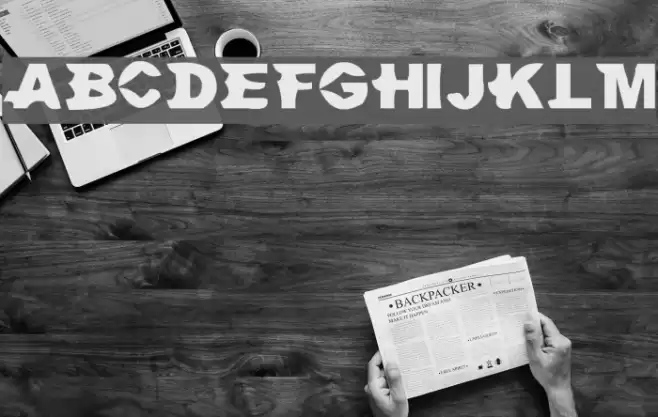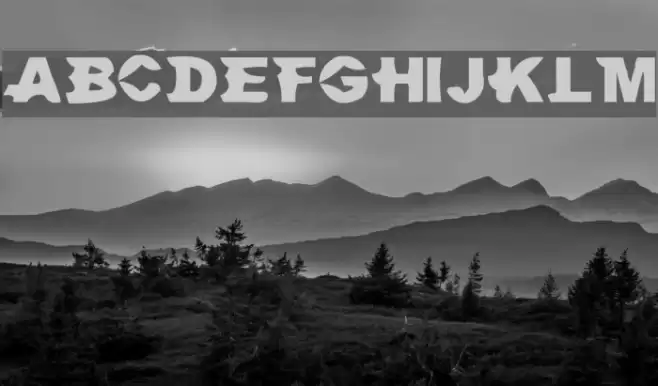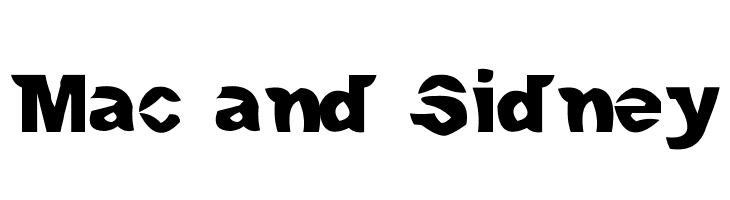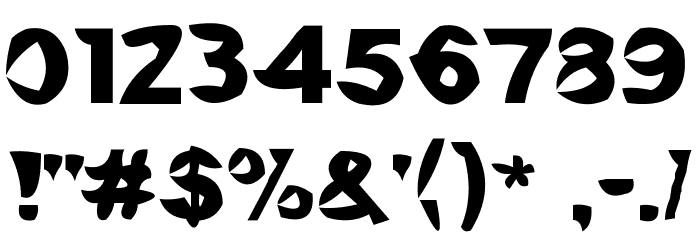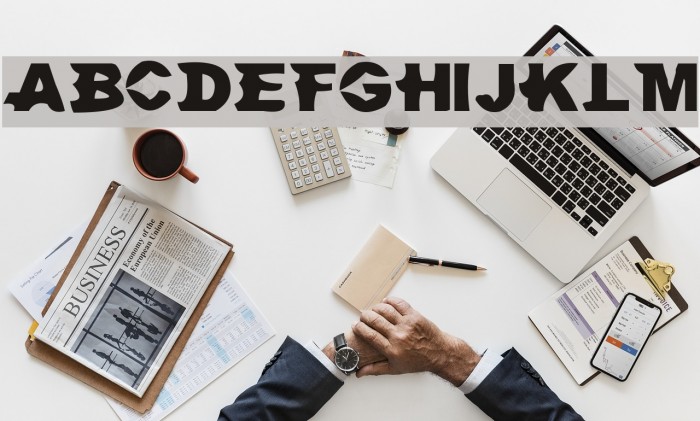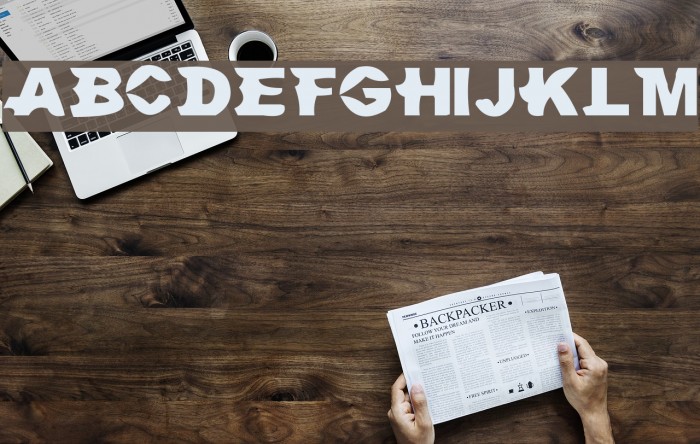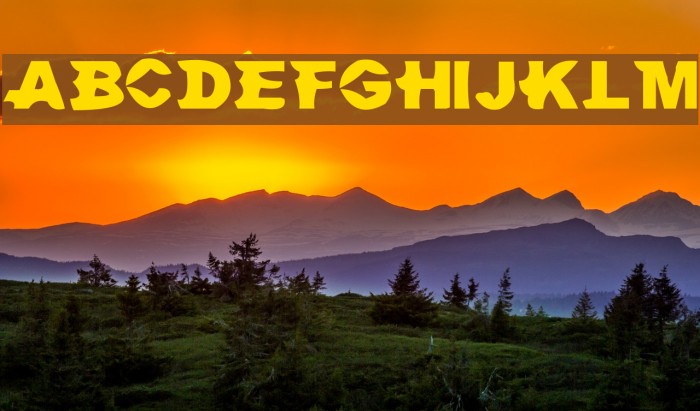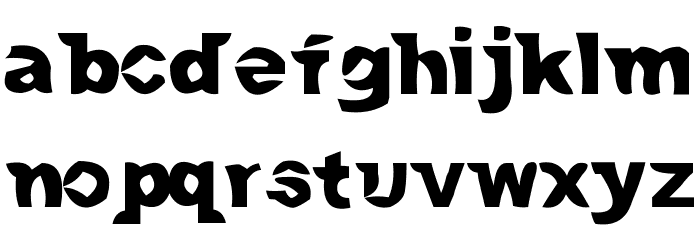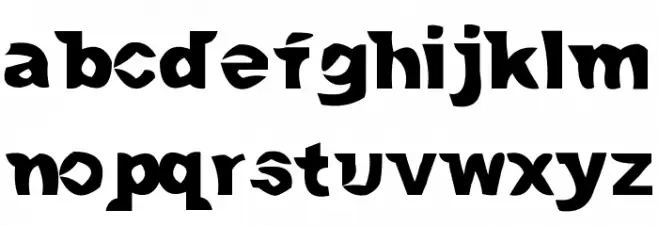
Mac and Sidney Font
Mac and Sidney Description
This font features a bold and playful design with a strong presence. Each character is uniquely crafted with exaggerated curves and angles, giving it a whimsical and dynamic appearance. The uppercase letters are particularly striking, with a robust and chunky style that commands attention. The lowercase letters maintain the same playful aesthetic, ensuring consistency throughout the typeface. Numbers and special characters are designed to match the boldness of the alphabet, making this font versatile for various uses. The overall look is both modern and decorative, suitable for projects that require a standout typeface.
A bold, playful font with exaggerated curves and angles, perfect for decorative use from Decorative fonts.
- Proposed Projects: Ideal for posters, logos, children's books, and any project requiring a fun and eye-catching typeface.
- Overall Style: Modern, Decorative